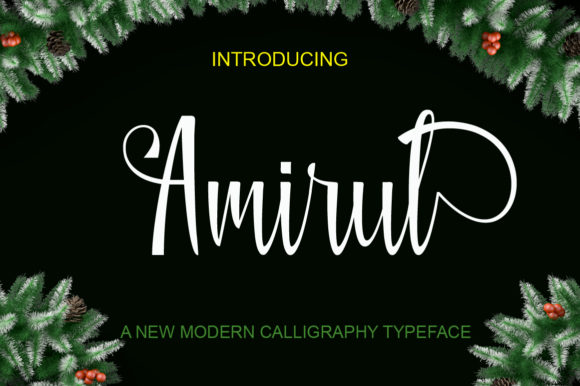
Step into the world of Amirul Font, a whimsical and enchanting script that dances with elegance before your eyes. This exquisitely crafted handwritten font, brought to life by the talented Ogex86, radiates an aura of authenticity and charm that's sure to capture your heart. Let your imagination soar as you explore the endless creative possibilities hidden within each glyph.
With its playful and carefree nature, Amirul Font invites you to embark on a typographic adventure like no other. Its organic feel whispers of freedom and individuality, making it the perfect choice for those who seek to express themselves with a touch of flair. Whether you're designing logos, branding materials, or simply adding a personal touch to your digital creations, Amirul Font will add a captivating touch of artistry that's sure to leave a lasting impression.
So, dive into the world of Amirul Font and let your creativity run wild. Experience the joy of crafting designs that ooze personality and charm, all while embracing the unique beauty of handwritten typography. With its versatility and effortless elegance, Amirul Font is the perfect companion for any creative soul looking to add a spark of magic to their projects.